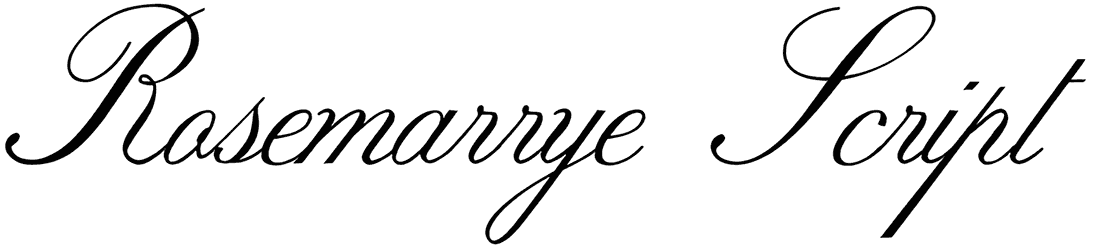
Rosemarrye Script Font
Rosemarrye Script is perfect for adding a touch of magic to your designs. It seems that this calligraphy font was made for fairy tale books and is very prominent in the form of cover design, albums, packaging, and animations.
This beautiful certificate font has twists and turns that will make any designer stop to look at it, even if the numbers and readability are lacking, and it conveys the same effect to the viewers in the form of your content.